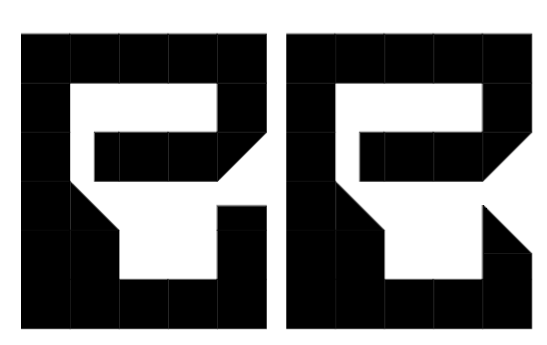
@TableTopGaming - A very interesting design.  Could the bottom right of the Bb also be angled at the top like the Gg, mirroring the upper portion?  That might make legibility easier.  :^)
@Goatmeal, I thought about doing that, but I wasn't sure if it would fit the aesthetic of the rest of the letters. I'll change it right away :)